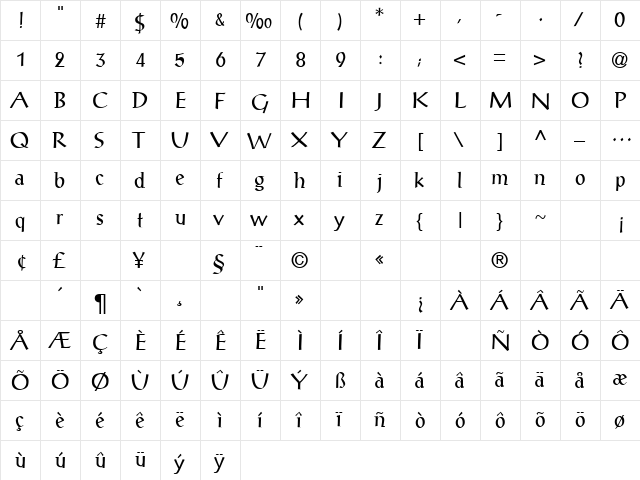
Parang Normal Font Preview
Parang Normal
Parang Normal Font Details
Design Context for Parang Typeface
Parang takes a measured approach to typography — its balanced proportions and neutral character make it a reliable workhorse for both digital and print work.